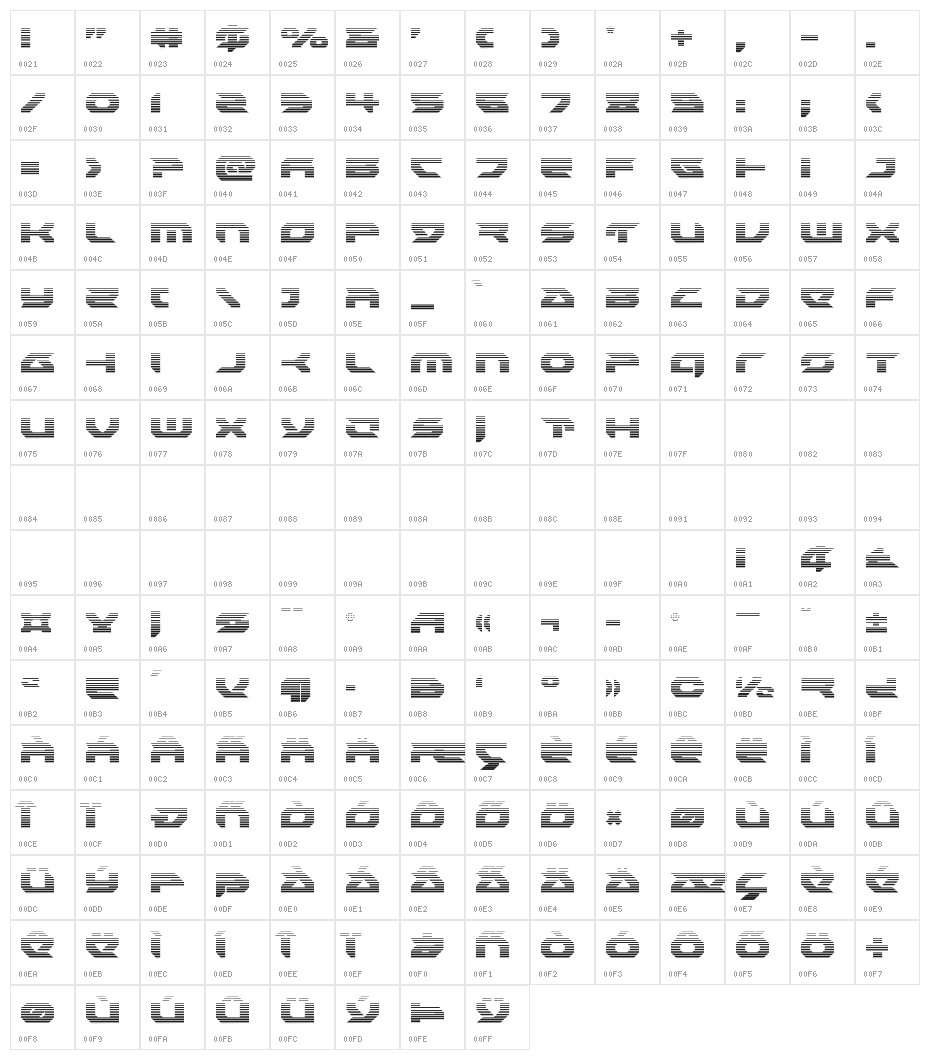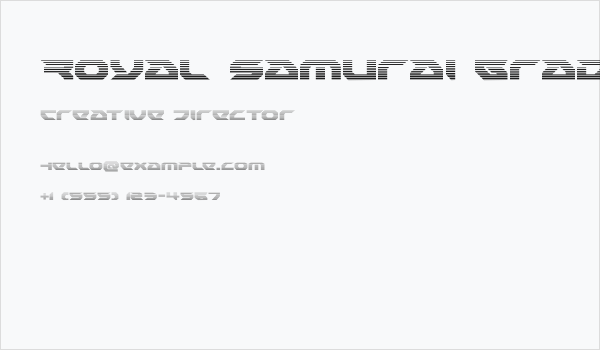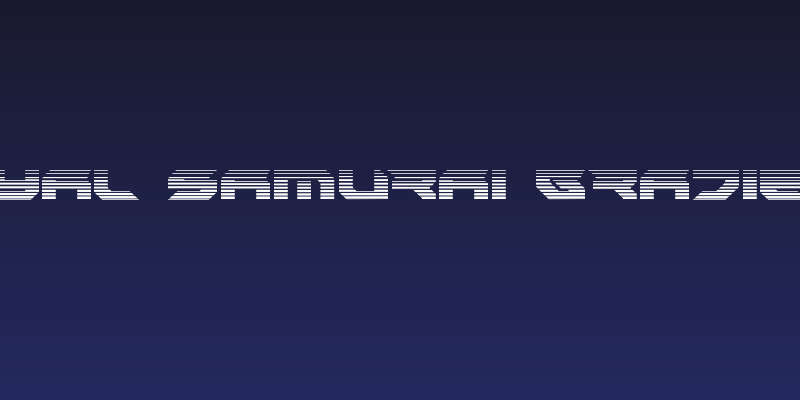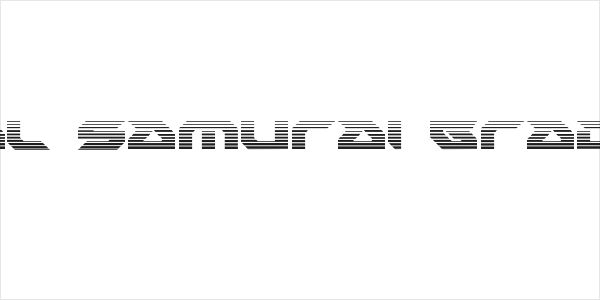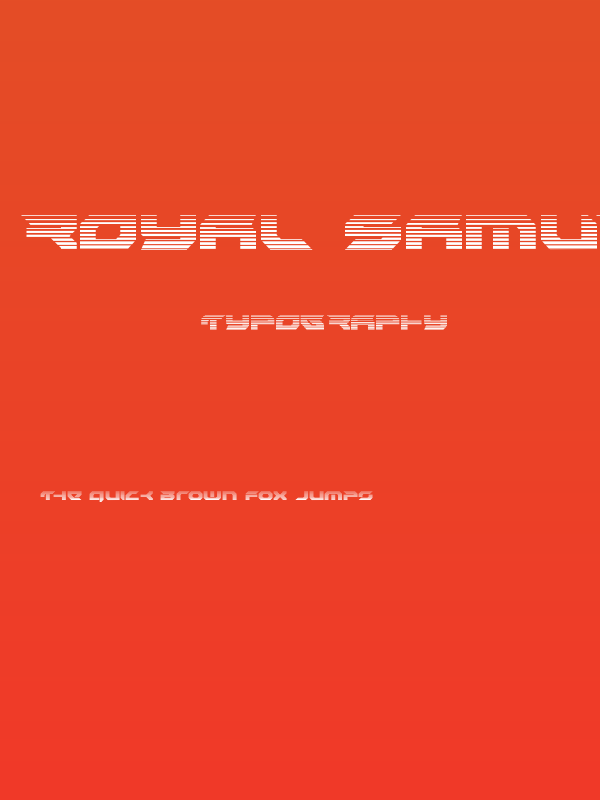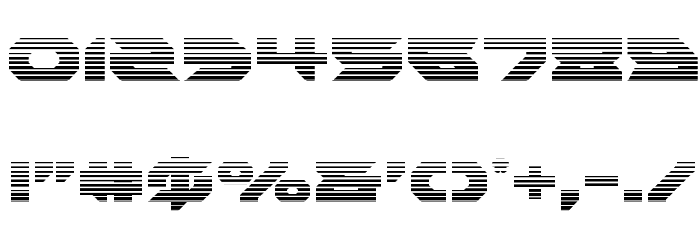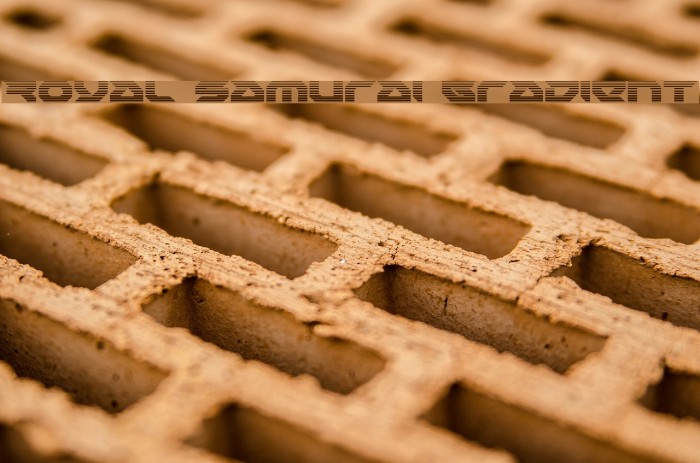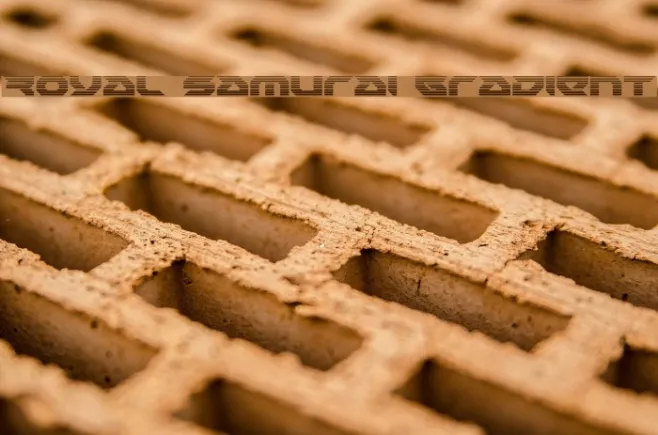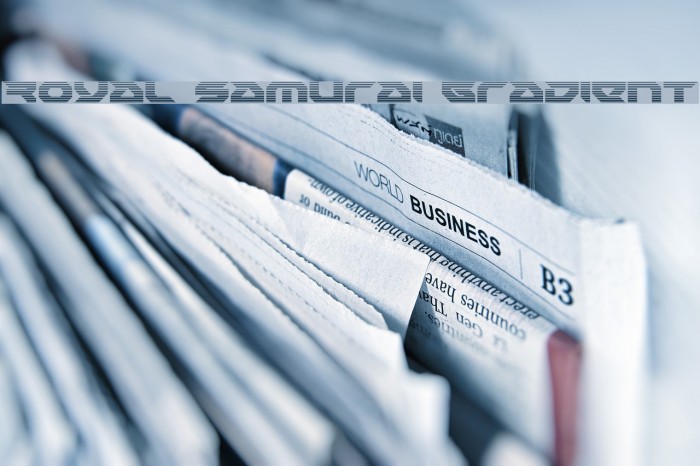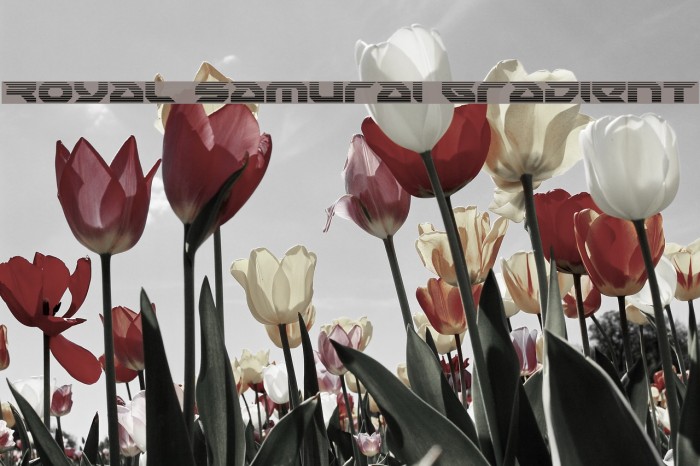
Royal Samurai Gradient Font
Royal Samurai Gradient Description
This font features a bold, futuristic design with a distinct gradient effect created by horizontal lines. Each character is constructed with a series of parallel lines that give it a unique, layered appearance. The geometric shapes and sharp angles contribute to a modern and edgy aesthetic, making it stand out in any design. The uppercase and lowercase letters maintain a consistent style, while the numerals and special characters are crafted with the same attention to detail. This font's striking visual impact is ideal for projects that require a bold statement.
| Proposed Projects | Ideal for sci-fi themed designs, video game titles, posters, and branding that requires a modern edge. |